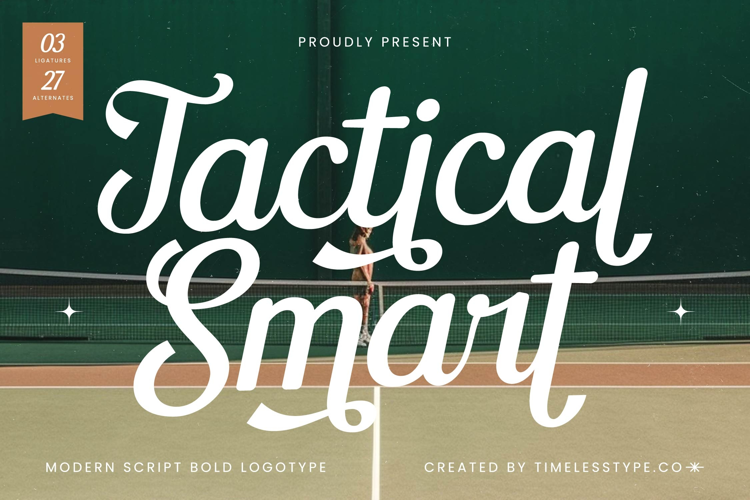
Tactical Smart - Modern Script Bold Logotype
Tactical Smart
Tactical Smart Italic
Tactical Smart - Modern Script Bold Logotype
Make an unforgettable visual statement with the commanding presence of Tactical Smart - Modern Script Bold Logotype. This font masterfully merges the elegance of classic mid-century script lettering with the uncompromising weight of a modern bold display typeface. Its smooth, dynamic flow and substantial stroke contrast ensure maximum legibility and high-impact visibility, making it the premier choice for designs that need to shout confidence and style across any medium.
Unlock endless design possibilities through robust feature sets engineered for creative control. Tactical Smart - Modern Script Bold Logotype includes an array of stylistic alternates and ligatures, giving designers the tools needed to refine every curve and connection. These features allow for sophisticated, custom logotype creation, ensuring every application feels hand-crafted and unique. This is more than a font; it is a comprehensive branding solution built for design precision.
Elevate your brand identity instantly across any market. Tactical Smart - Modern Script Bold Logotype is perfectly suited for luxury branding, high-end packaging design, athletic and sporting apparel design, and distinctive editorial titles. It provides the essential punch required for impactful poster campaigns and powerful product labeling. With its extensive multilingual support, Tactical Smart - Modern Script Bold Logotype adapts seamlessly across global markets, making it incredibly versatile for international projects.